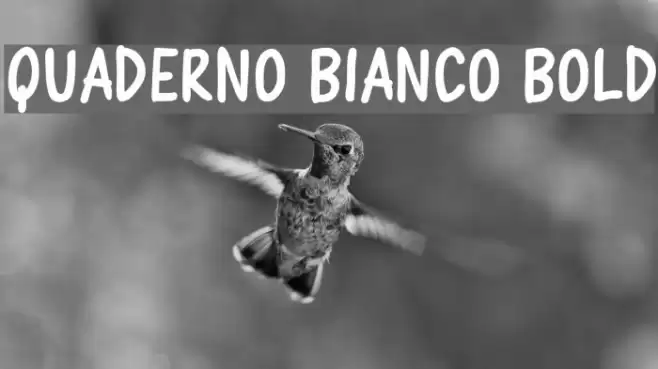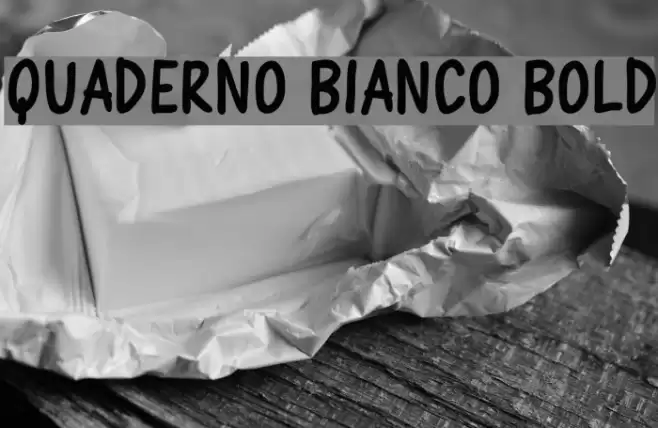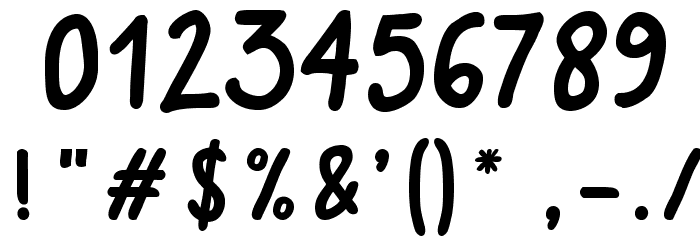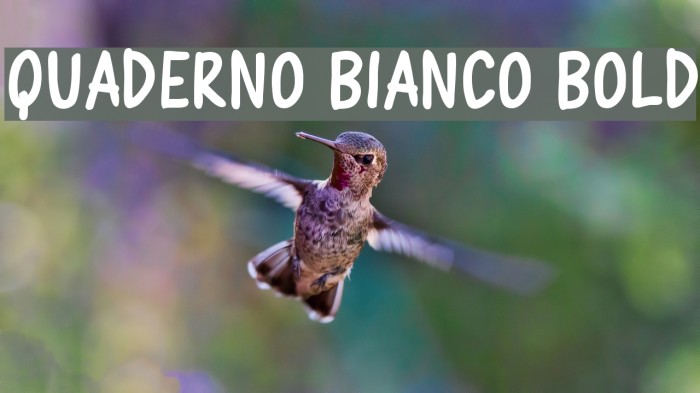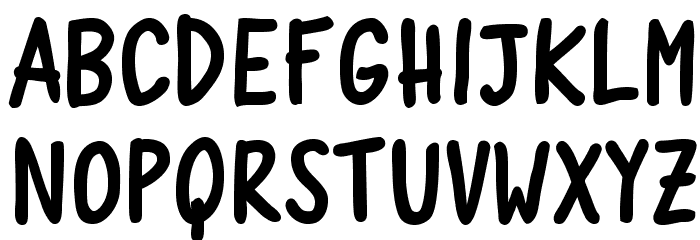
Quaderno Bianco Bold Font
Quaderno Bianco Bold Description
This font features a playful and bold handwritten style, characterized by its thick strokes and casual appearance. The letters are slightly irregular, giving it a charming and informal look. The uppercase and lowercase characters maintain a consistent weight, contributing to its bold presence. The numerals and special characters are designed to match the overall style, ensuring a cohesive appearance across all text elements. This font is ideal for projects that require a friendly and approachable aesthetic, such as children's books, casual branding, or playful invitations.
A bold, playful handwritten font with thick strokes and a casual style from Uncategorized fonts.
- Overall Style: Playful